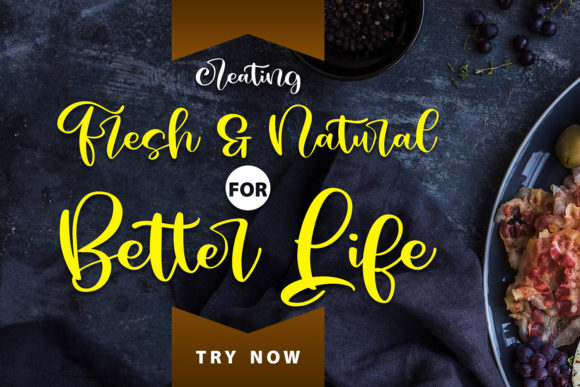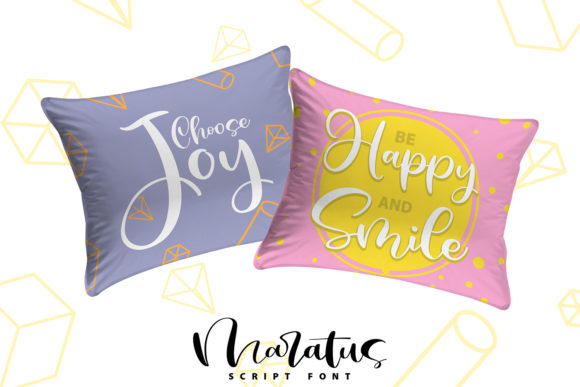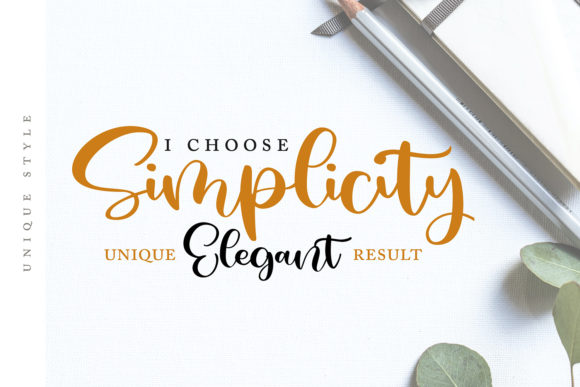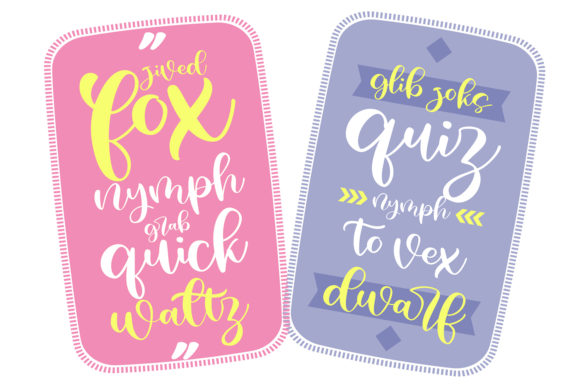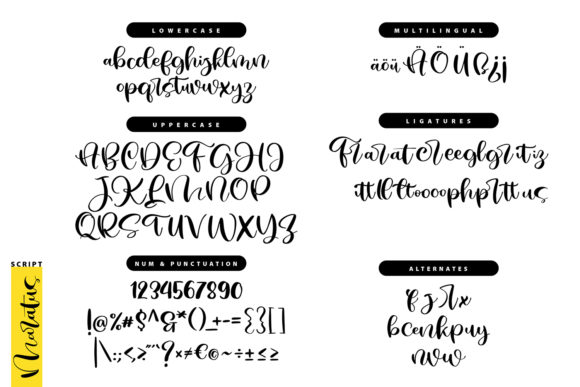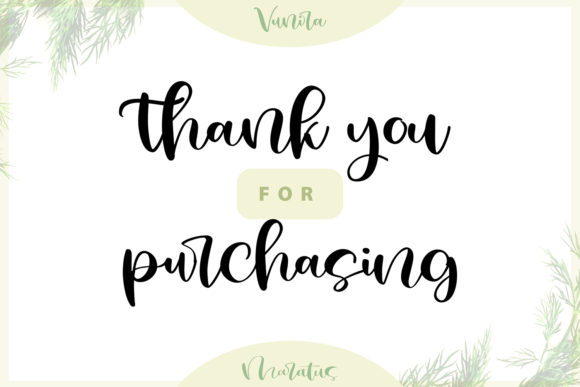
Introduction to Maratus Font
Have you ever been stuck in the middle of a creative project, searching for the perfect font to bring your vision to life? You know that moment when you finally stumble upon the perfect design resource, and it’s like a weight has been lifted off your shoulders? That’s exactly what I’m about to share with you – a game-changing font that will elevate your designs to the next level.
Meet the Maratus Font, a unique handwritten font that’s as versatile as it is stunning. With its PUA encoded features, you’ll have access to a world of glyphs and swashes that will add a touch of elegance to any design. Whether you’re working on a personal project or a high-quality commercial design, this font is sure to impress.
Key Features of Maratus Font
- Transparent Background: The Maratus Font allows for a seamless integration of text with any design, thanks to its transparent background.
- High-Quality Design: Maratus Font is designed with precision and attention to detail, ensuring that it meets the highest standards of typography and aesthetics.
- Perfect for Creative Projects: With its unique and stylish design, Maratus Font is ideal for creative projects that require a touch of sophistication and elegance.
- Excellent Design Resource: Maratus Font is a valuable addition to any designer’s collection, providing a versatile and high-quality design resource for various creative projects.
Honest Review: Maratus Font
I recently came across the Maratus Font, a free download that caught my attention for its unique design and high quality. As a designer, I appreciate resources like this that can add a creative twist to my projects.
Here are some aspects that work well: ✨ The font’s transparent background makes it easy to use on any design, and the free download option is a huge plus for designers on a budget. The Maratus Font is also highly versatile, suitable for a wide range of creative projects.
Overall, I’m impressed with the Maratus Font and would recommend it to designers looking for a unique and high-quality design resource. It’s perfect for adding a creative touch to your next project.
- Highly versatile
- Modern and edgy design
How to Use Maratus Font
Getting the Most Out of Maratus Font
To get the most out of Maratus Font, use it on a transparent background to create a seamless design. You can also use the font in combination with other design elements to create a unique and creative project.
The Maratus Font is ideal for use in creative projects, such as logos, branding materials, and marketing materials. It’s also a great design resource for creating high-quality presentations, documents, and websites.